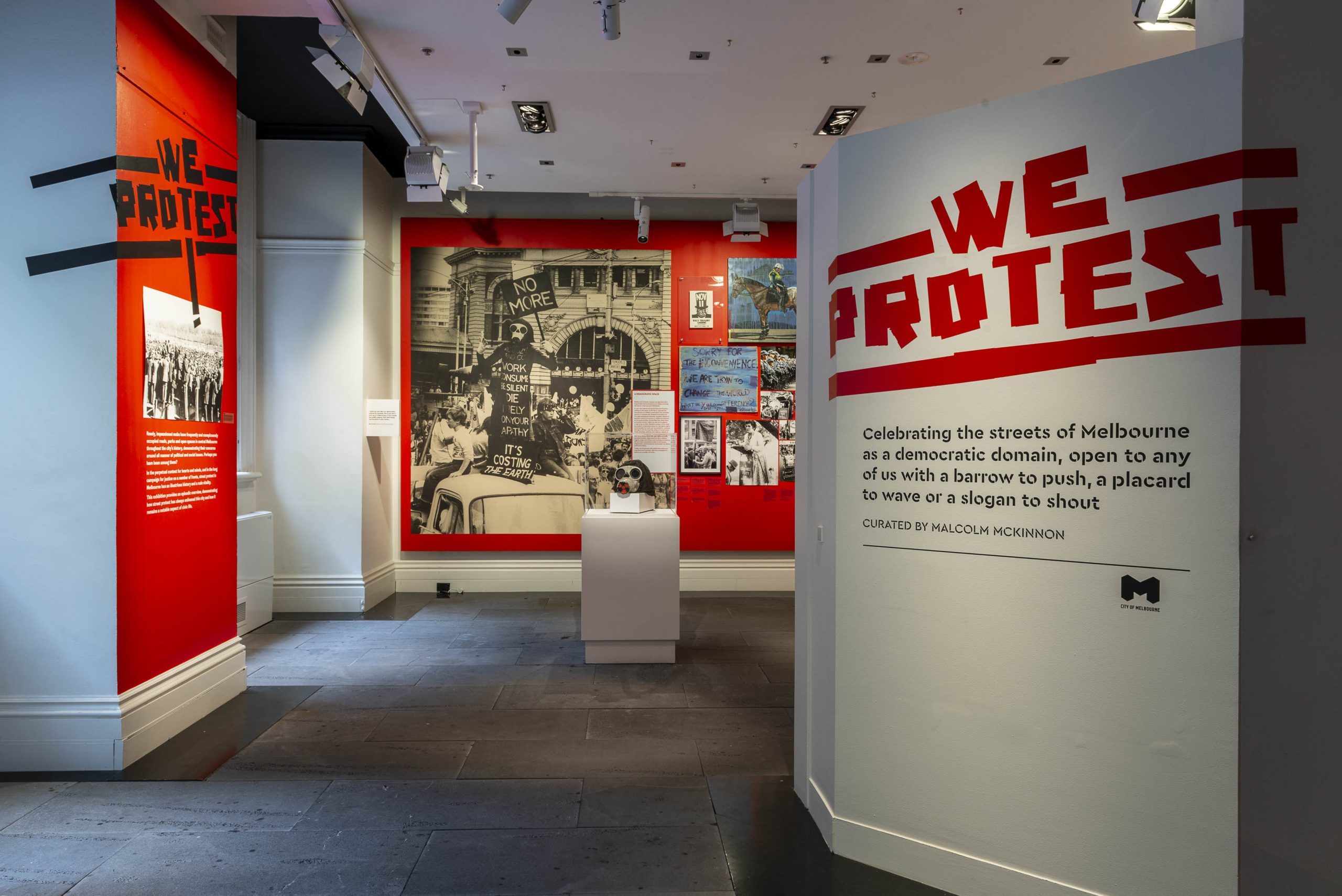
We Protest
design Letterbox curator Malcolm McKinnon
Rowdy, impassioned mobs have frequently and conspicuously occupied roads, parks and open spaces in central Melbourne, demonstrating on all manner of political and social issues. We Protest! presents the city as a democratic domain, open to any with a barrow to push, a placard to wave or a slogan to shout.
Using previous experience with the spontaneous production of protest banners, the exhibition lettering was made using gaffer tape, torn with teeth or bare hands.